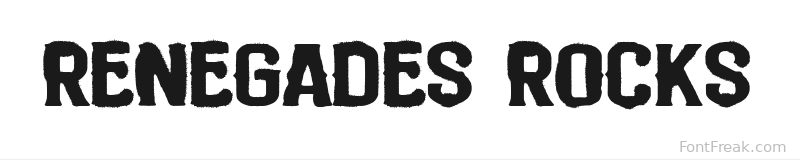
Renegades Rocks
Renegades Rocks is a striking display font designed by woodcutter Manero, classified within the decorative font category. This font exudes a rugged charm, characterized by its bold, uneven strokes that create a sense of raw energy and artistic flair. The stroke weight varies throughout the letters, enhancing its hand-crafted appearance, while the contrast between thick and thin lines adds visual interest. The spacing is thoughtfully designed, allowing the characters to breathe and ensuring legibility even in larger sizes. The font's jagged edges and slightly distressed finish evoke a sense of adventure, making it perfect for a variety of creative applications.
This font shines in use cases such as movie posters, where a bold statement is essential, and in branding for outdoor events or adventure sports. It can also elevate restaurant menus, especially for establishments aiming for a rustic or laid-back vibe. Wedding invitations that draw on a theme of individuality and nonconformity can benefit from Renegades Rocks, adding a unique touch to the traditional format. Additionally, it serves well for merchandise design targeting niche markets, such as skateboarding or music festivals.
The target audience for this font includes graphic designers seeking to make a memorable impact, small business owners wanting to stand out in a crowded market, and content creators aiming for a distinct aesthetic.
What sets the Renegades Rocks font apart is its ability to convey personality and character. It manages to blend a sense of playfulness with an edgy appeal, making it a versatile choice for anyone looking to infuse their projects with originality. For those interested in enhancing their creative toolkit, the Renegades Rocks font free download offers an exciting opportunity to explore a fresh, distinctive style.